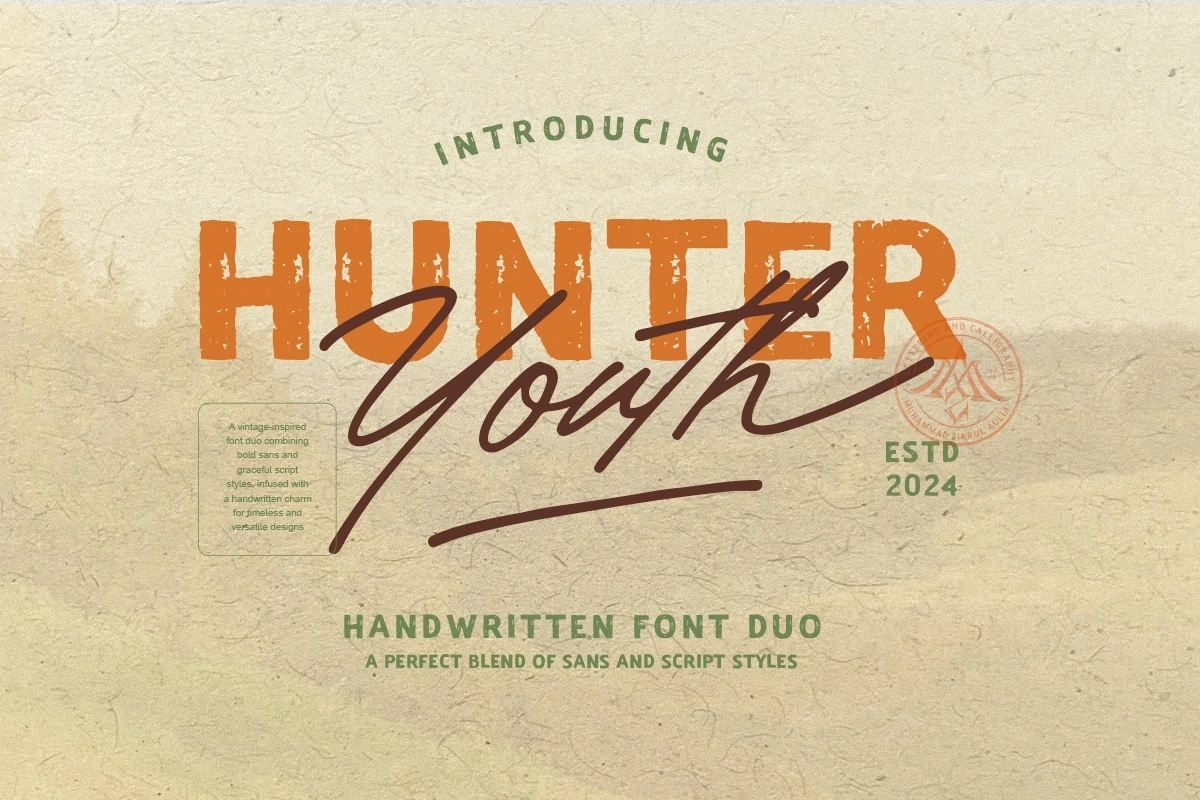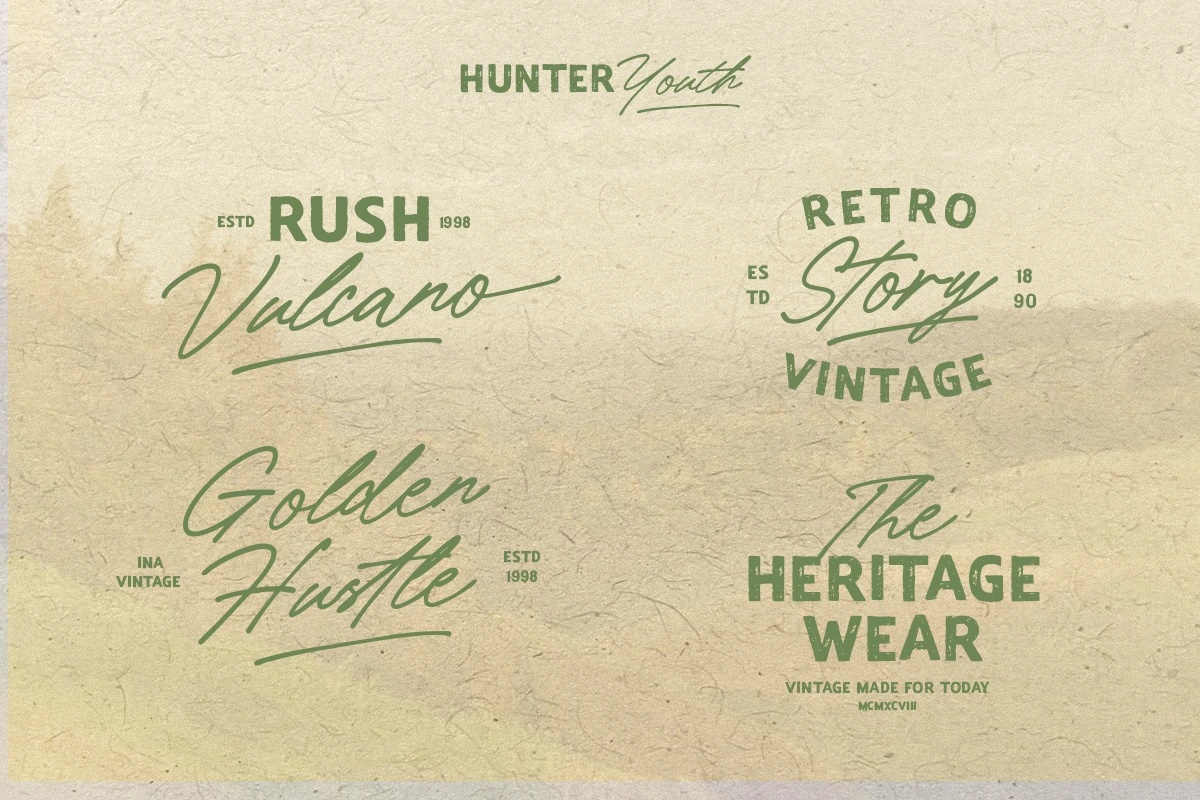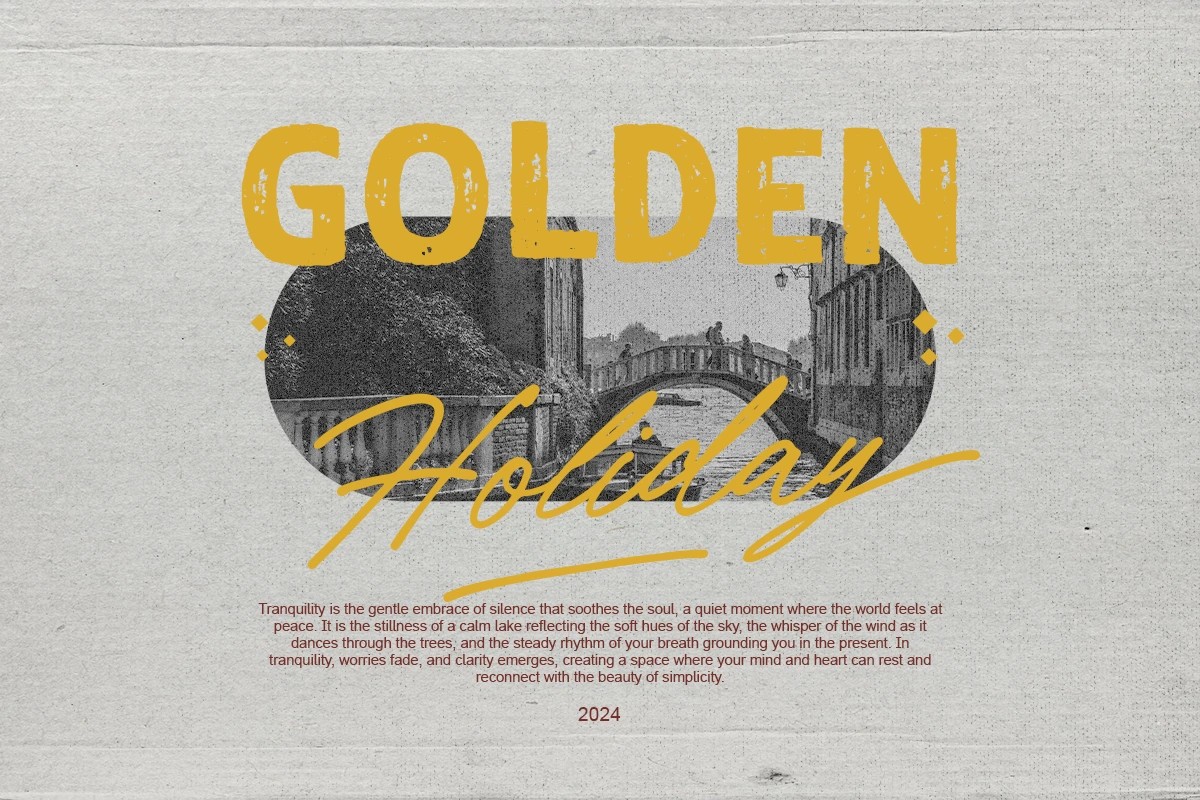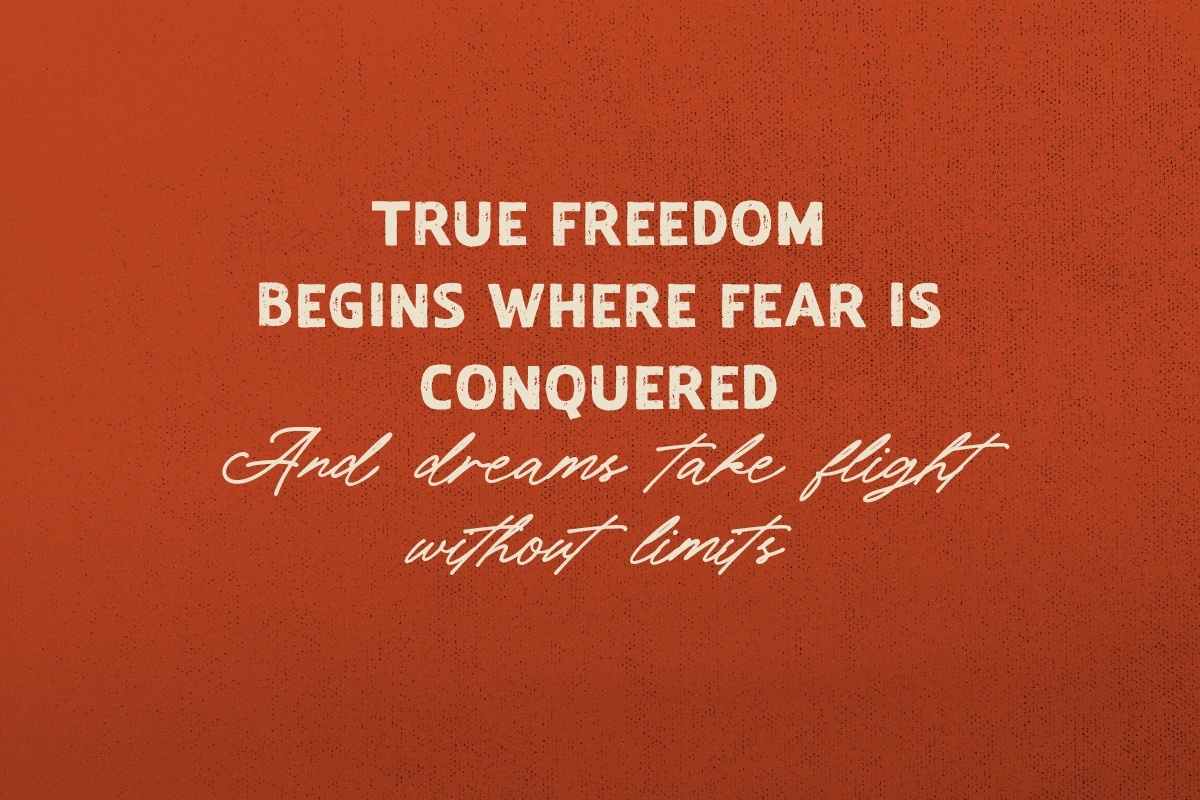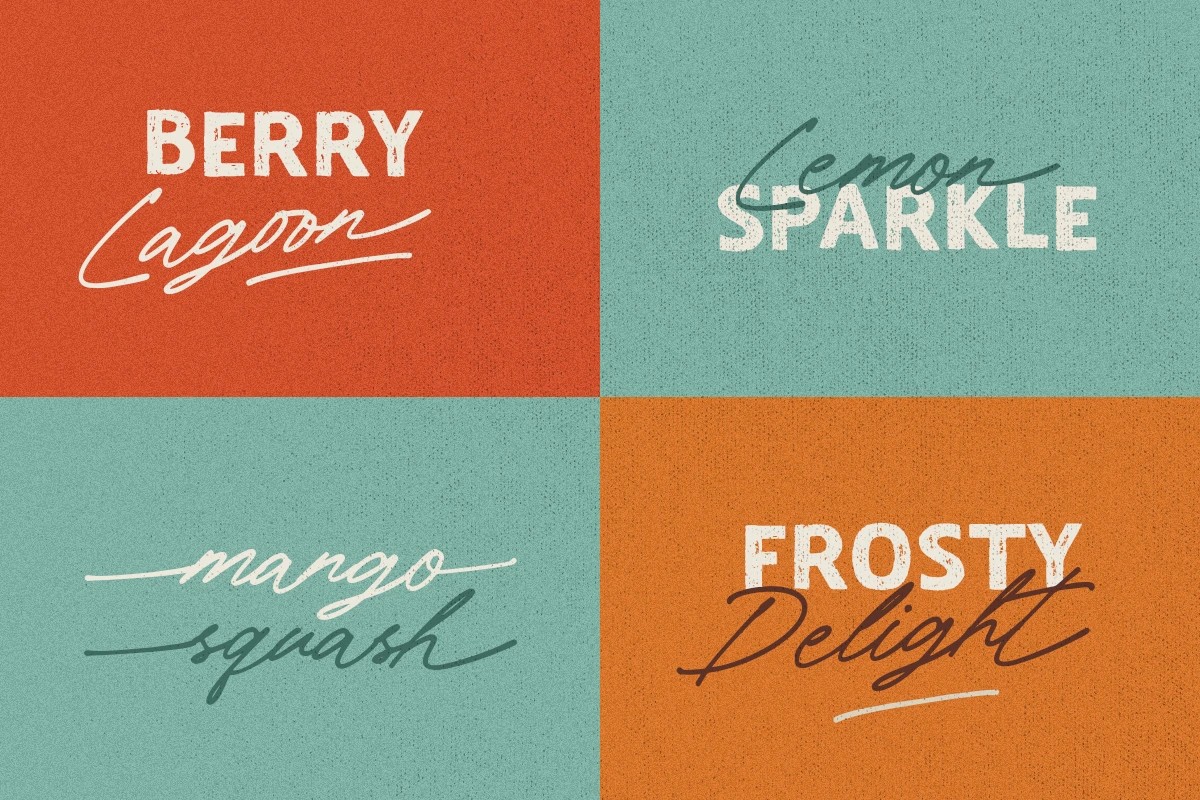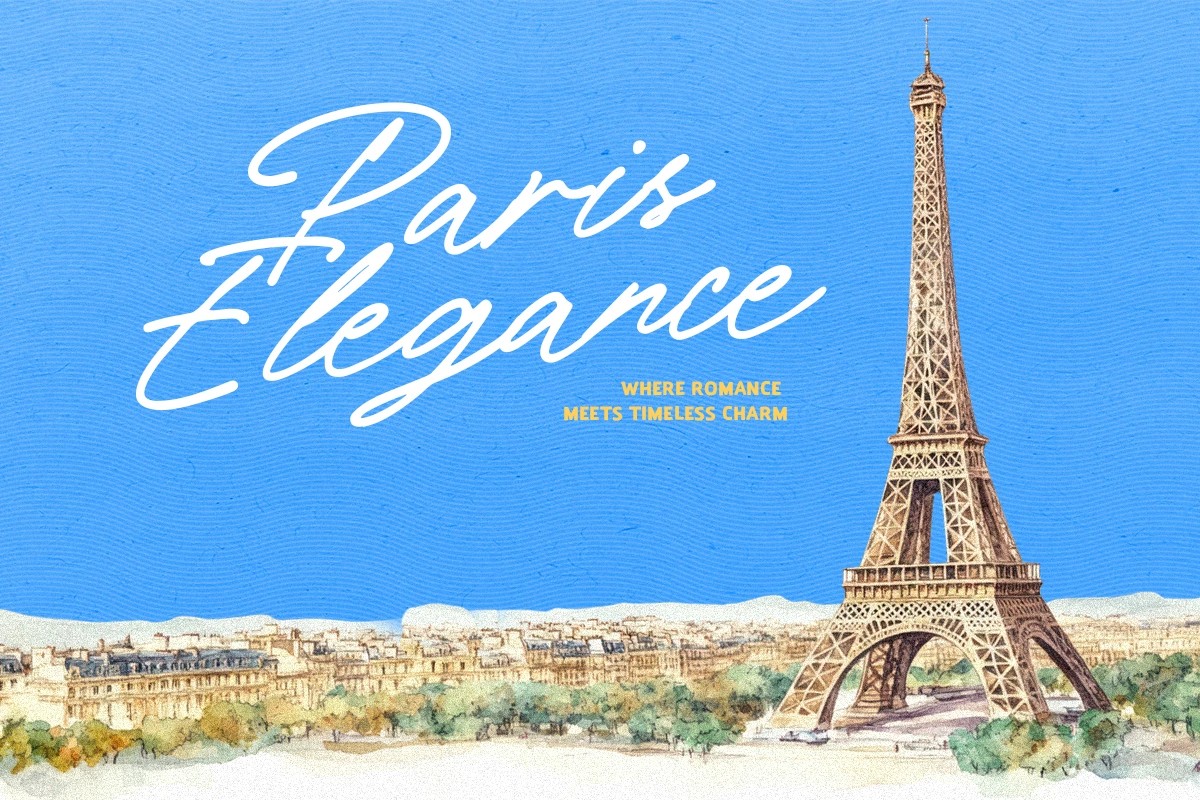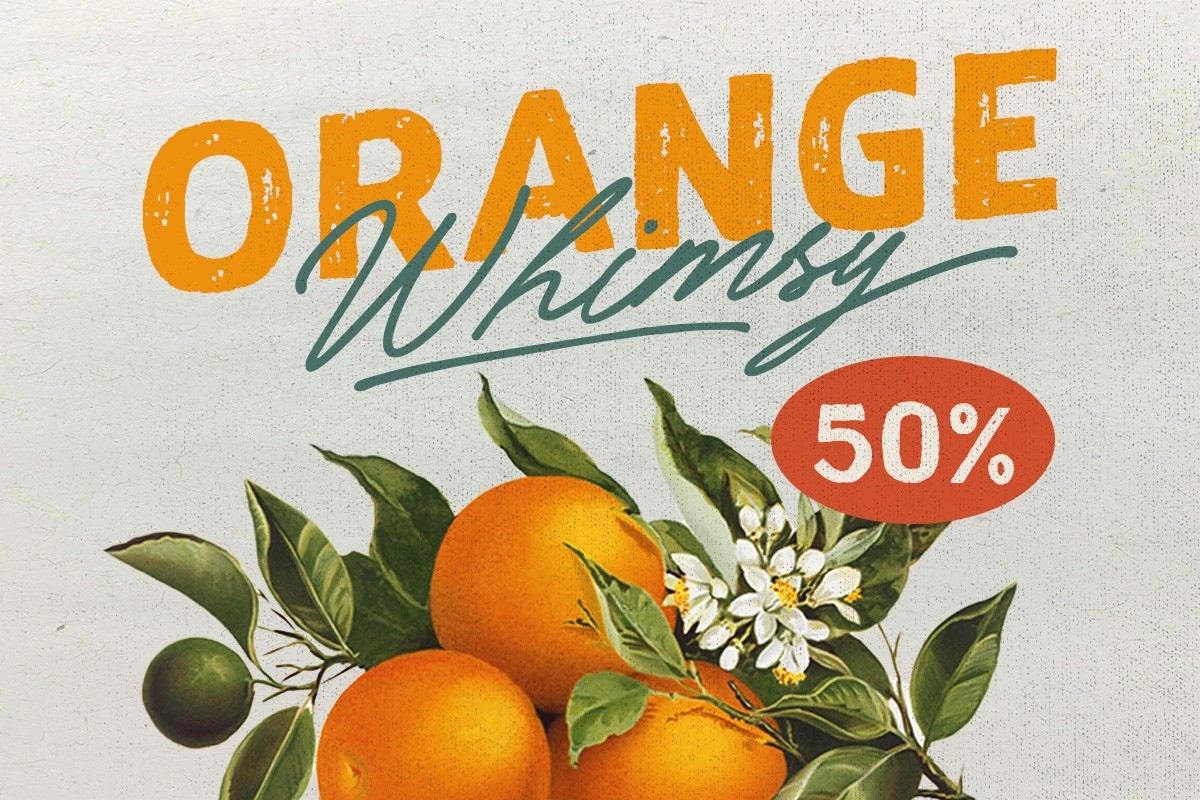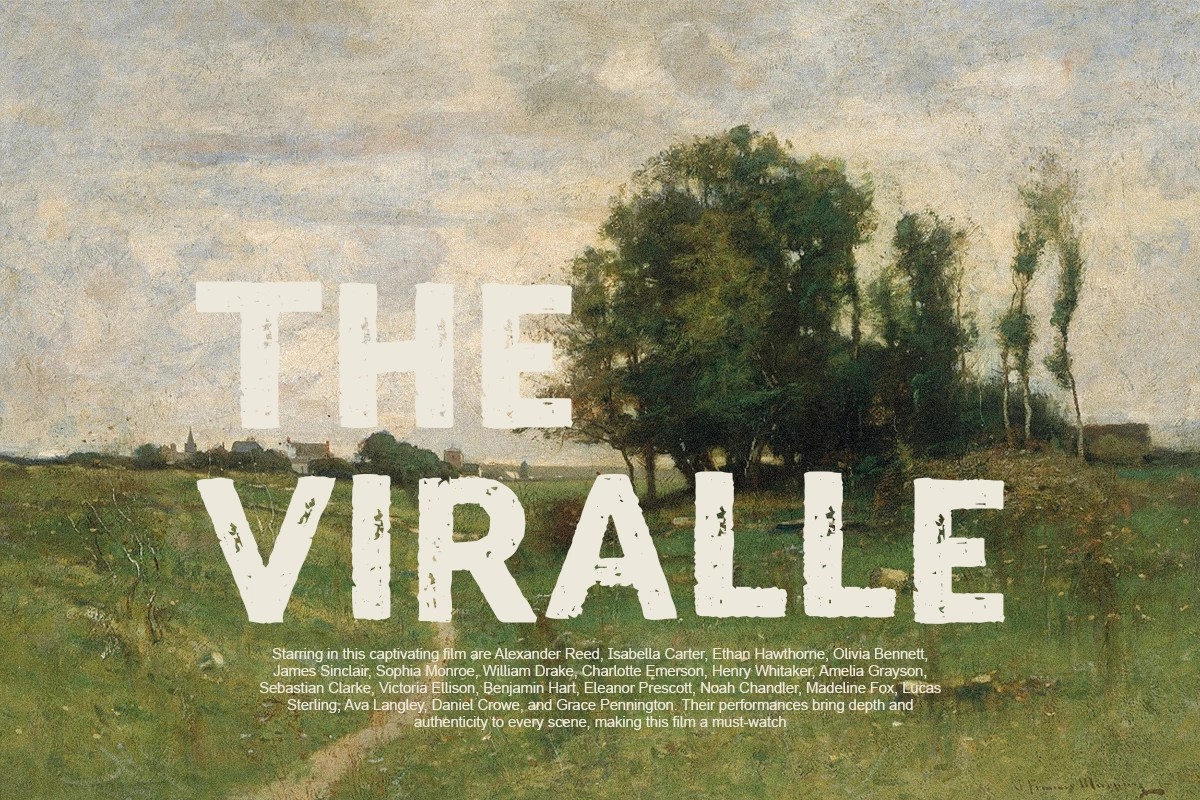
Hunter Youth - Vintage Handwritten Font Duo
Hunter Youth is a handwritten font duo anchored in the rugged graphic language of vintage Americana — stamp-pressed labels, worn silk-screen prints, and late-90s skatewear type. The Sans cuts a wide, inked silhouette with an uneven grain running through the strokes, and the Script swings through generous loops and long underscores, the way a signature looks when it has somewhere to be.
The two styles hold contrast well in combination: the Sans commands the headline, the Script anchors the secondary line, and the tension between them reads as crafted, not assembled. Use it for streetwear logos, craft beer labels, gig posters, apparel hangtags, sports branding, music festival graphics, social campaign headers, packaging concepts, and merch prints.